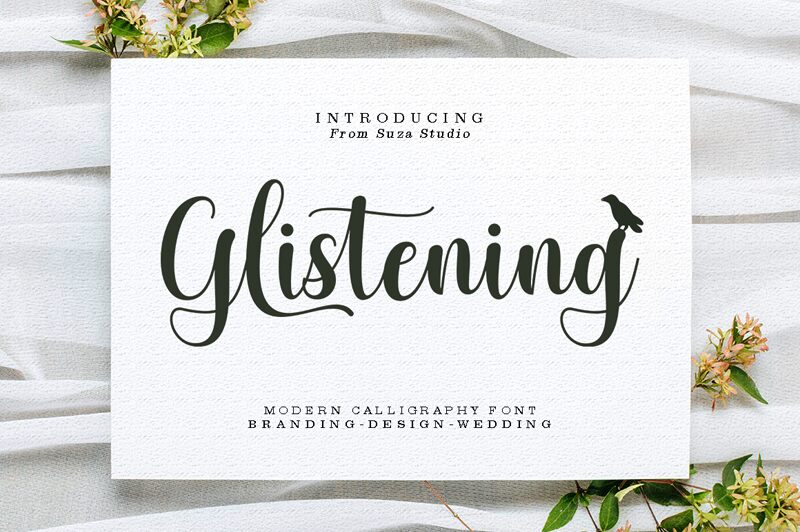
Glistening Script, designed by Zikril lah, is a captivating calligraphy font with a semi-light weight.
Its elegant curves and flowing strokes make it perfect for wedding invitations, greeting cards, and feminine branding projects. The font's graceful appearance adds a touch of sophistication to product packaging, fashion magazines, and beauty blogs. With its versatile nature, Glistening Script can also enhance restaurant menus or create stunning social media graphics.
Whether it's a romantic project or a luxurious brand identity, this font will effortlessly elevate your designs with its exquisite calligraphic style.